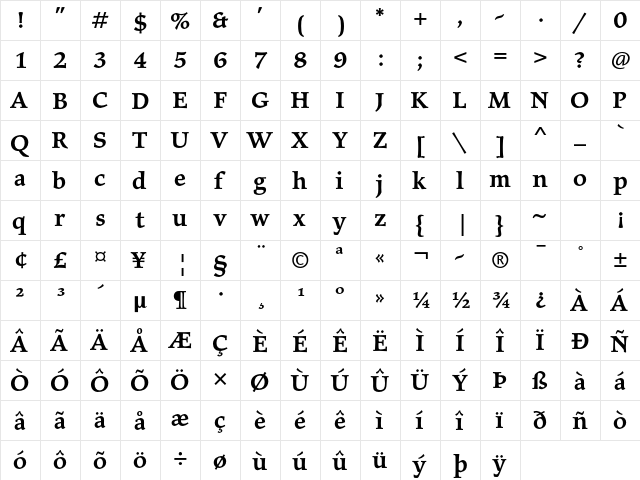
Elysium Std Medium
| Designer | Michael Gills |
Design Context for Elysium Std Typeface
Elysium Std offers clean, dependable letterforms without strong stylistic allegiance, making it a practical choice for designers who need flexibility.